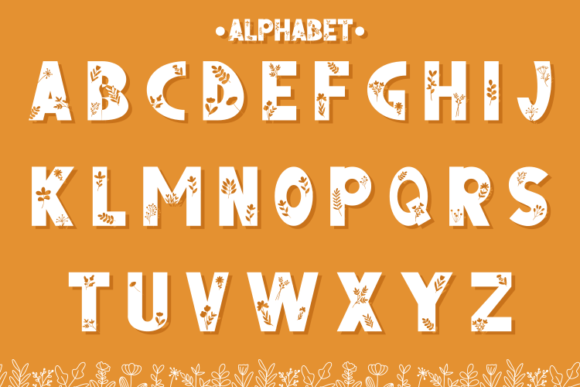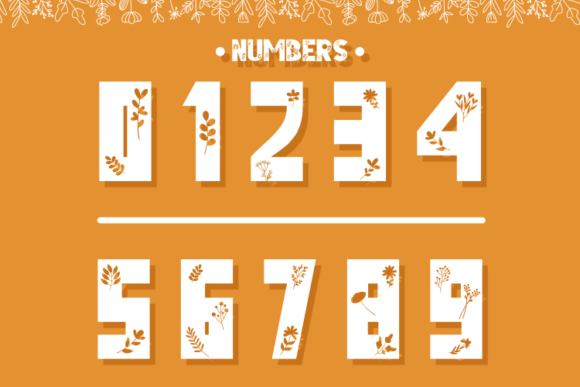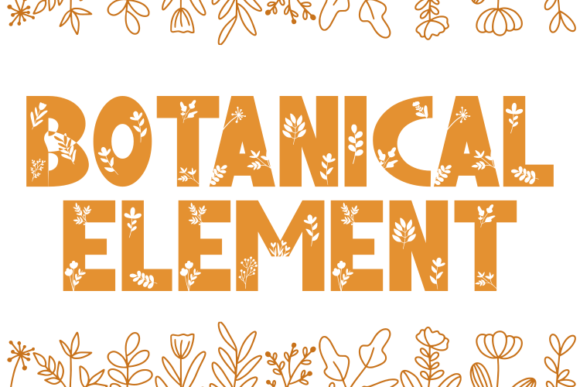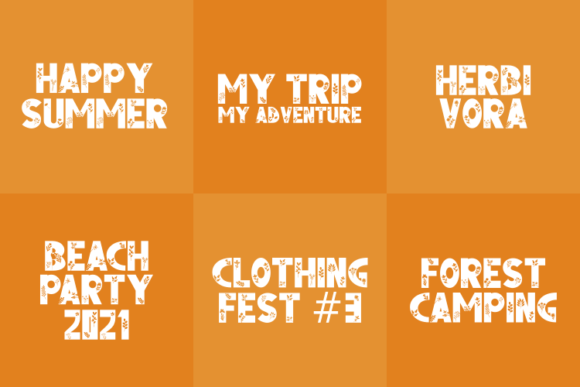
Introduction to Florena Font
Have you ever stared at a blank canvas, wondering how to bring your creative vision to life? That’s where the perfect design resource comes in – a font that can elevate your project from ordinary to extraordinary. For designers, finding the right font can be a game-changer, and that’s where the Florena Font comes in.
This cool and thick lettered decorative font is a hidden gem in the world of typography. Its intricate details and high-quality design make it a valuable addition to any font library. Whether you’re working on a free download or a paid project, the Florena Font has the potential to take your creative project to the next level. With its transparent background and stunning visuals, this font is sure to impress.
Key Features of Florena Font
- High-quality, free download font perfect for any creative project
- Features a transparent background, ideal for graphic designers and artists
- Designed with a unique, elegant style suitable for various design resources
- Includes a wide range of characters, including uppercase and lowercase letters, numbers, and symbols
Honest Review: Florena Font
I recently stumbled upon the Florena Font, and I must say it’s been a game-changer for my creative projects. As a designer, I’m always on the lookout for high-quality design resources that can elevate my work. The Florena Font definitely fits the bill.
- ✨ High-quality design: The Florena Font is incredibly detailed and polished, making it perfect for a variety of creative projects.
- ✨ Transparent background: This feature allows for seamless integration with any design, giving me complete control over the final product.
- ⚠️ Limited font styles: While the Florena Font is a great addition to any design arsenal, it’s limited in terms of font styles – which may not be ideal for more complex projects.
Florena Font
For the best results, use Florena Font on a transparent background to make it stand out. You can also experiment with different font sizes and styles to add depth to your design.
Florena Font is a great design resource for creating invitations, social media graphics, and brochures. Its high-quality design makes it perfect for free download and use in various creative projects.